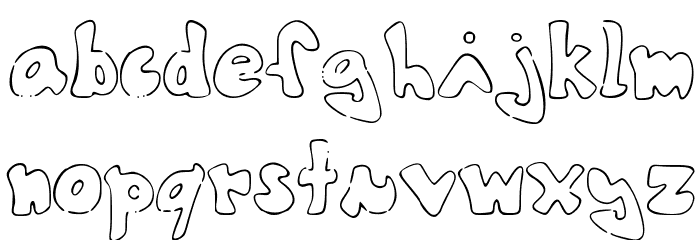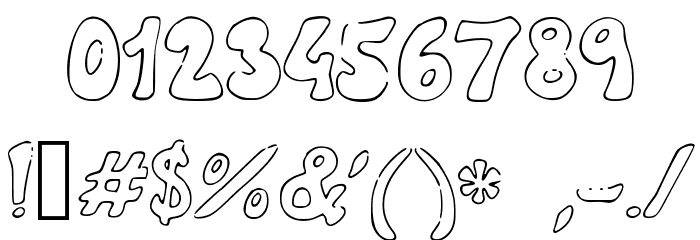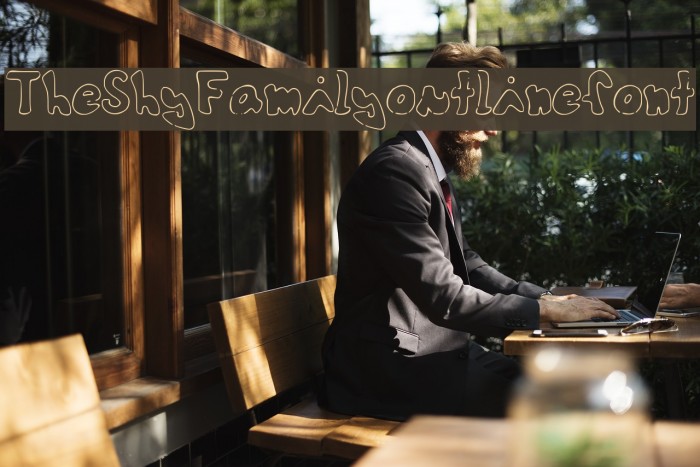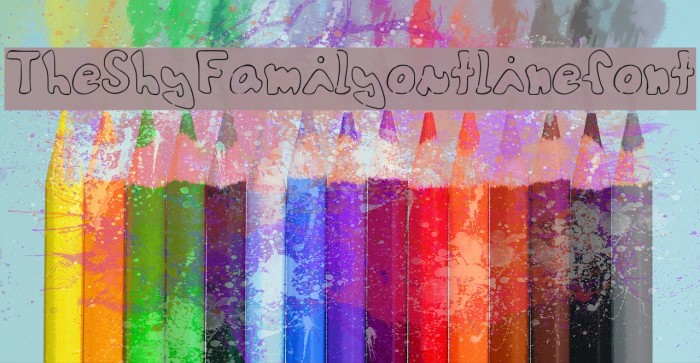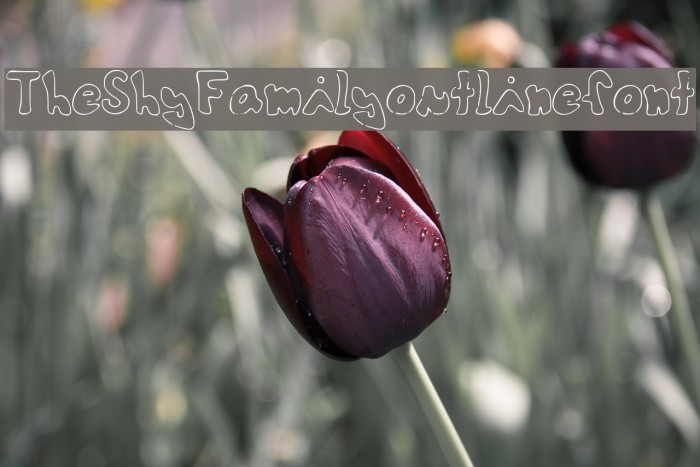
TheShyFamilyoutlinefont Font
This playful and whimsical font features bold, rounded characters with an outline style that gives it a unique, hand-drawn appearance. The letters are slightly irregular, adding to the casual and friendly vibe. The font includes both uppercase and lowercase letters, numbers, and a variety of special characters, making it versatile for different design needs. Its outline design allows for creative color fills and layering, enhancing its visual appeal. The overall look is approachable and fun, suitable for projects that require a touch of personality and creativity.
A playful, hand-drawn outline font with a whimsical and friendly style.
- Proposed Projects: Ideal for children's books, playful branding, greeting cards, and creative posters.
- Overall Style: Whimsical, Playful
- Use Case: Headlines, Logos, Creative projects